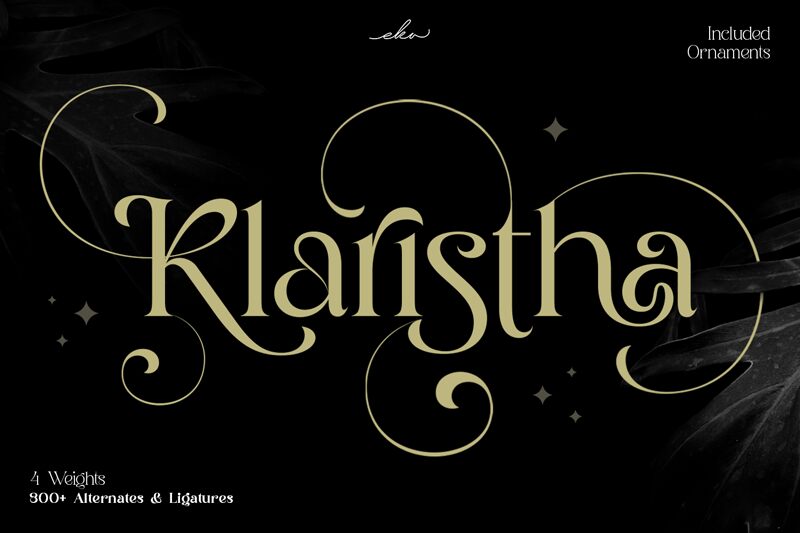
Klaristha Thin, crafted by Eka Hermawan, stands as a testament to elegance in the realm of serif fonts. With its delicate serifs and slender form, Klaristha Thin exudes a sophisticated charm that captures the viewer's attention. Its graceful lines flow seamlessly from one character to the next, creating an air of refinement and subtlety.
This font's understated beauty makes it ideal for high-end branding, luxury editorials, or any design endeavor that demands a touch of class without overwhelming the senses. Whether employed in print for wedding invitations or digital formats for minimalist web design, Klaristha Thin is poised to inject a whisper of finesse into every word it forms.